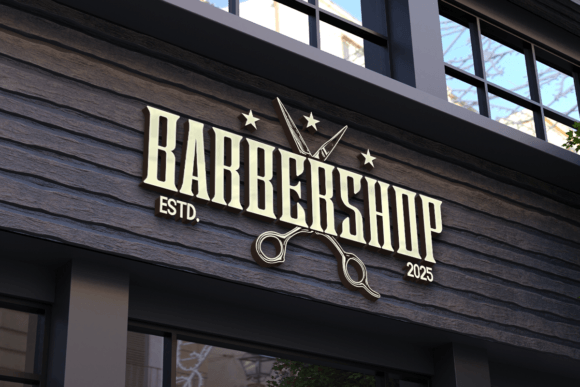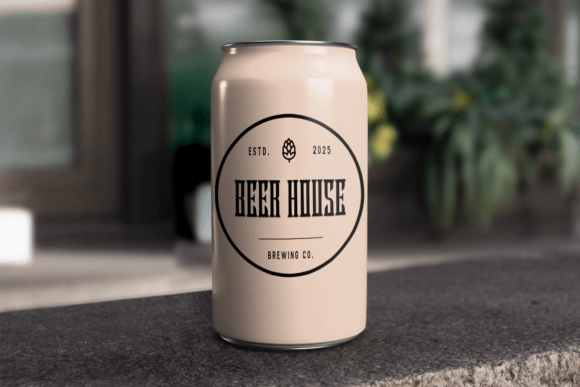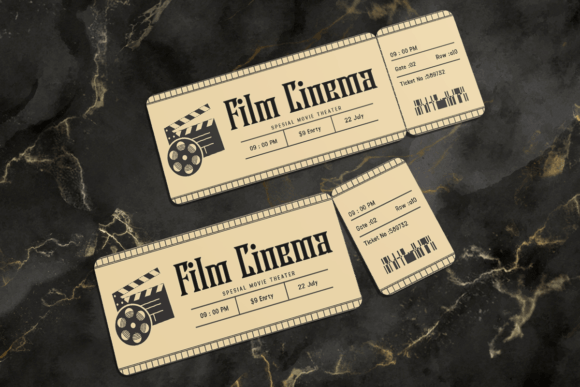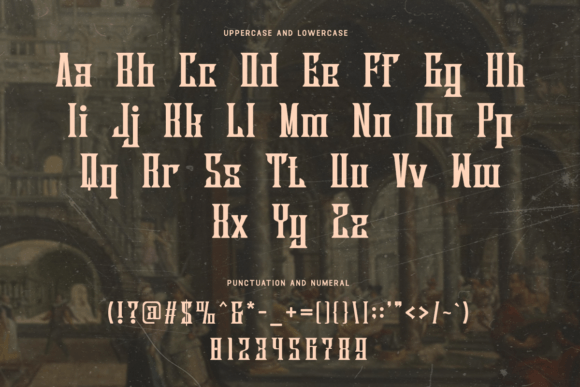
Borgentina Display Vintage Font: A Timeless Elegance for Modern Design
In the world of typography, few fonts manage to capture the essence of nostalgia and elegance as effectively as the Borgentina Display Vintage Font. This charming typeface is a masterful blend of classic curves and vintage-inspired details, making it an ideal choice for designers and crafters looking to infuse their projects with a touch of retro sophistication.
The Charm of Borgentina
Borgentina Display Vintage Font is more than just a typeface; it’s a statement piece that brings the elegance of the past into modern design. Its unique blend of classic and vintage elements makes it perfect for a wide range of applications, from posters and packaging to logos and branding. Whether you’re creating for print or digital, Borgentina adds a touch of old-world charm and elegance to your designs, making it a versatile choice for any creative endeavor.
So, what makes Borgentina Display Vintage Font so special? Here are a few key design characteristics that set it apart:
- Classic Curves: Borgentina’s curves are smooth and refined, evoking a sense of timeless beauty and sophistication.
- Vintage-Inspired Details: The font’s vintage-inspired details add a touch of nostalgia and elegance to any design.
Applications of Borgentina
Borgentina Display Vintage Font is a versatile typeface that can be used in a wide range of applications, including:
- Posters: Add a touch of elegance and sophistication to your posters with Borgentina’s classic curves and vintage-inspired details.
- Packaging: Make your packaging stand out with Borgentina’s unique blend of classic and vintage elements.
- Logos and Branding: Use Borgentina to create a lasting impression with your logos and branding, evoking a sense of timeless beauty and refined style.
- Digital Design: Borgentina is perfect for digital design, adding a touch of old-world charm and elegance to your website, social media, or digital marketing materials.
Why Choose Borgentina?
With so many fonts available, why choose Borgentina Display Vintage Font? Here are a few reasons why Borgentina stands out:
- Unique Blend of Classic and Vintage: Borgentina’s unique blend of classic curves and vintage-inspired details makes it a standout typeface.
- Versatility: Borgentina can be used in a wide range of applications, from print to digital.
In conclusion, Borgentina Display Vintage Font is a charming and nostalgic typeface that brings the elegance of the past into modern design. With its classic curves and vintage-inspired details, Borgentina is perfect for projects that require a touch of retro sophistication. Whether you’re a designer or crafter, Borgentina is a versatile choice that can add a touch of old-world charm and elegance to your designs. So why not give Borgentina a try and see how it can elevate your next project?